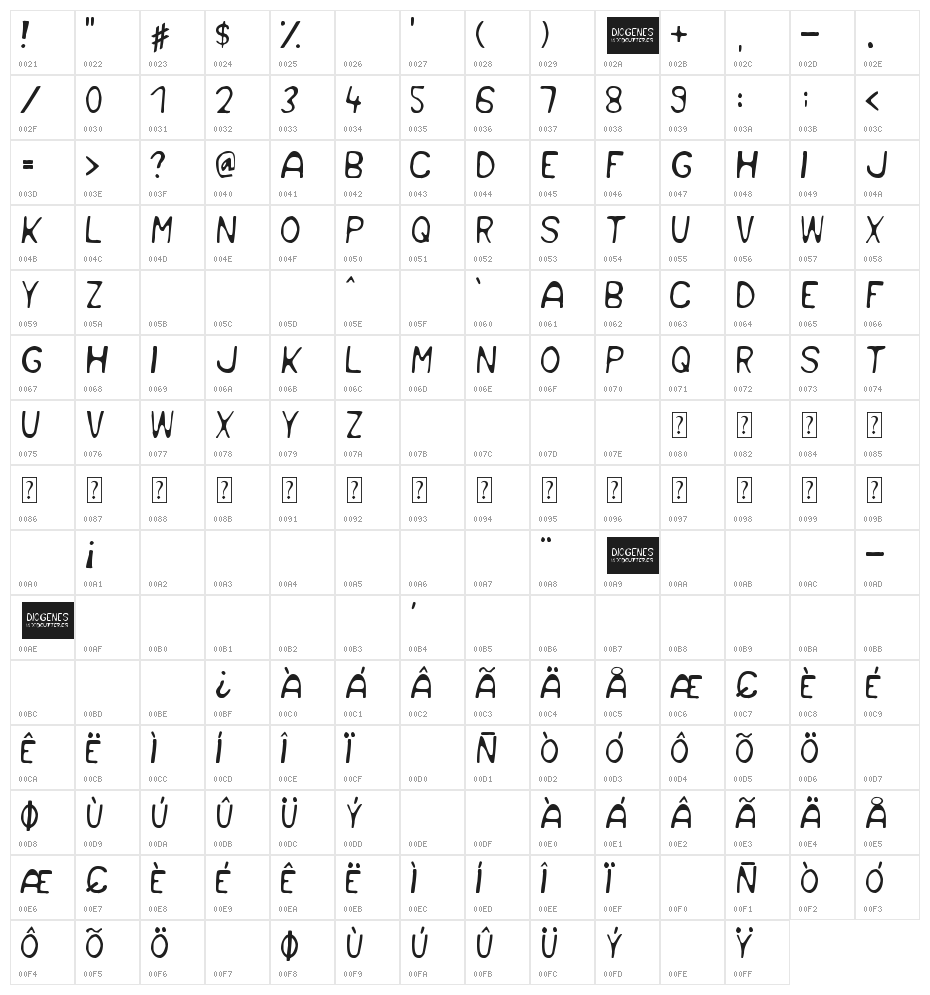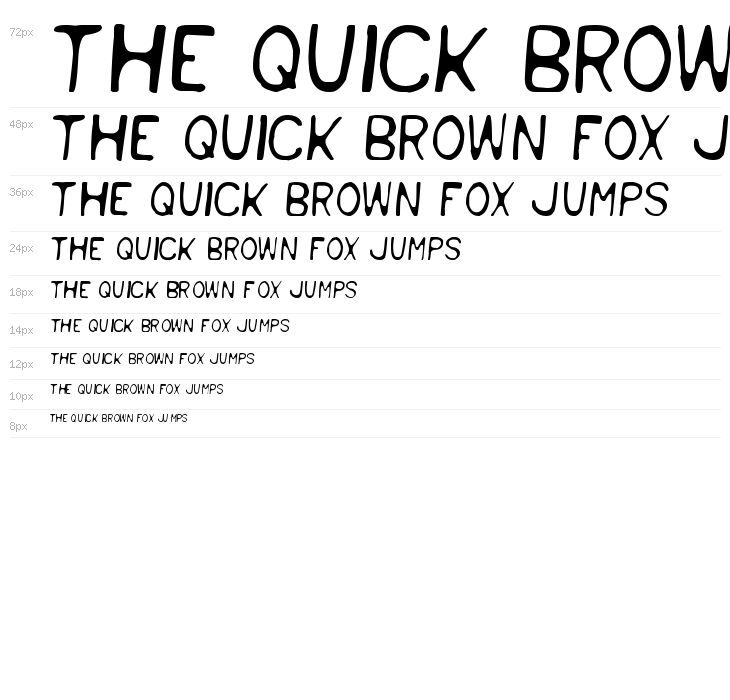
Diogenes Font
| Caso d'uso | Logos, Posters, Invitations |
| Progetti proposti | Ideal for children's books, playful branding, casual invitations, and creative posters. |